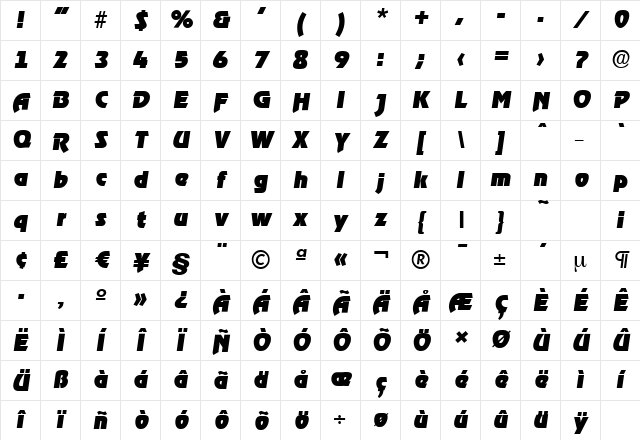
OnStageSerial-Black Italic
OnStageSerial-Black Family
Complete OnStageSerial-Black Italic glyph index. Displaying only characters natively supported by OnStageSerial-Black Italic font.
Design Context for OnStageSerial-Black
OnStageSerial-Black is a composed and adaptable typeface that performs quietly and consistently across a wide range of design contexts. The slanted form adds forward momentum and visual energy.
Pro Tip: Use OnStageSerial-Black for emphasis, pull quotes, and subheadings where its slanted energy can add rhythm to the layout.